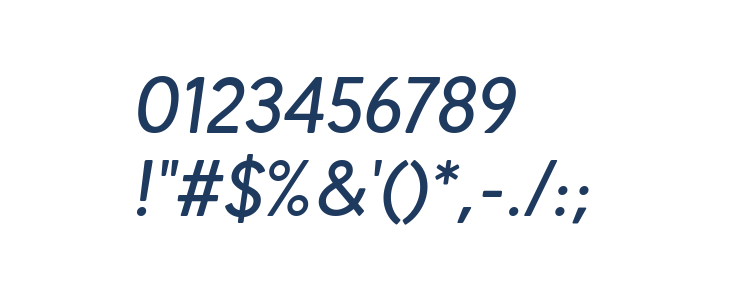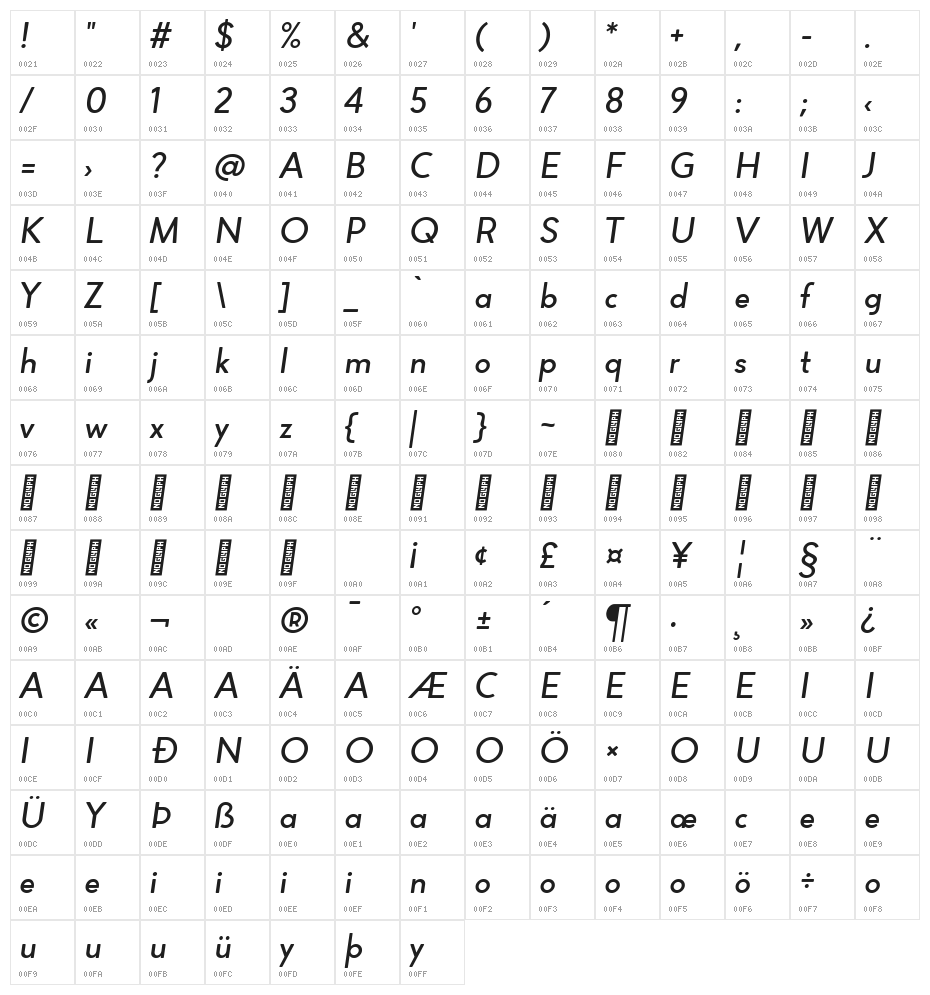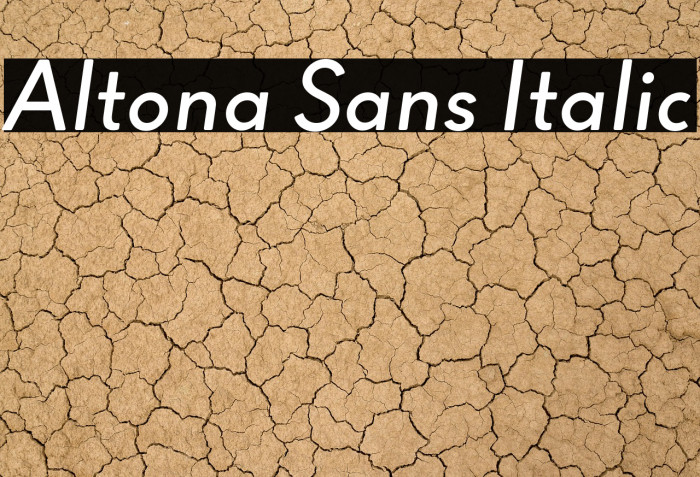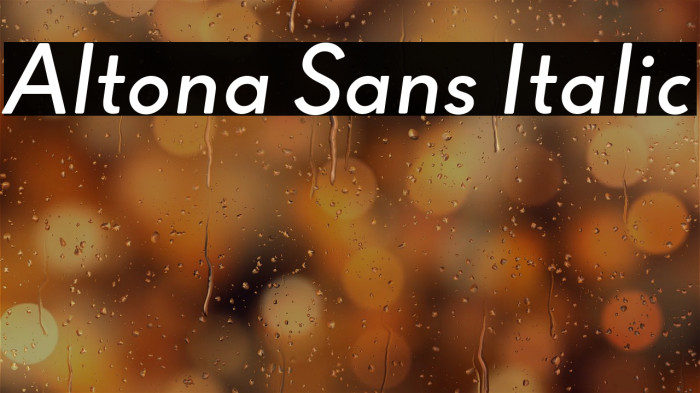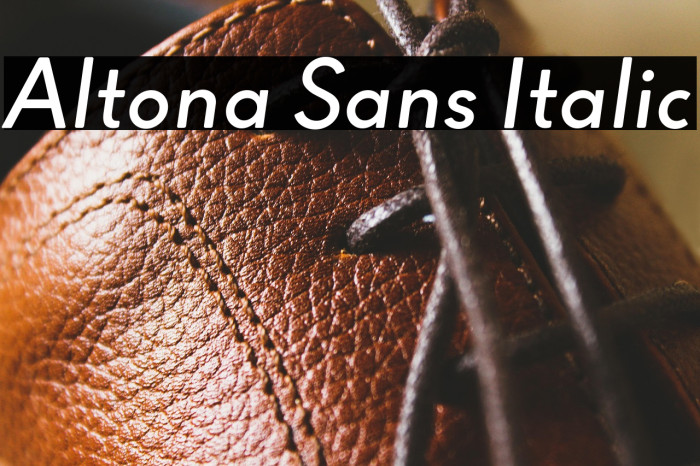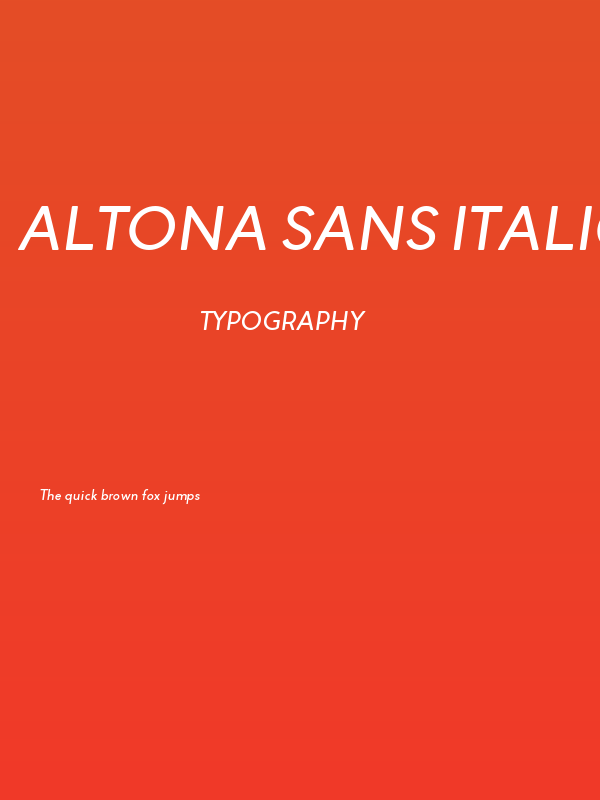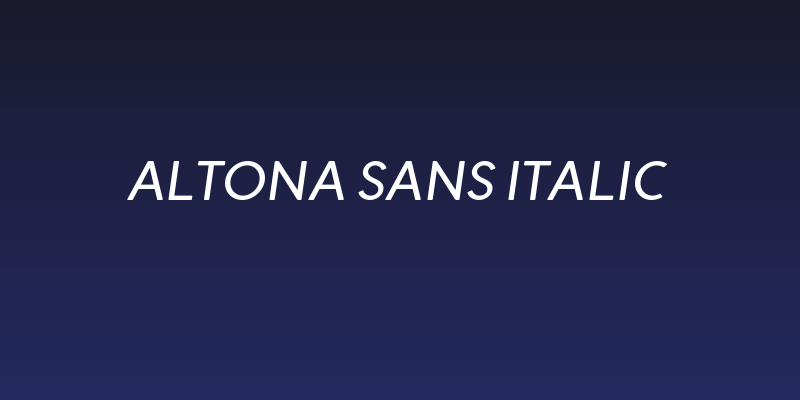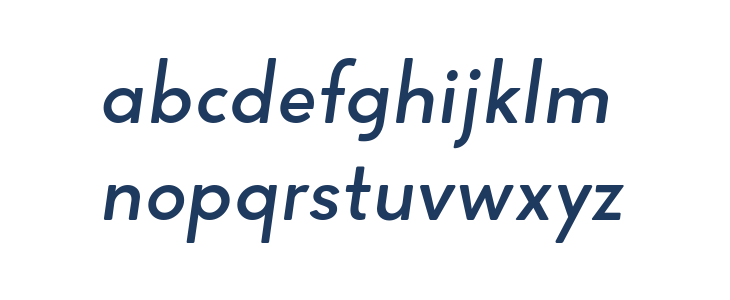
Altona Sans Italic Font
Altona Sans Italic Description
This font features a clean and modern sans-serif style with an italic slant, giving it a dynamic and forward-moving appearance. The characters are well-proportioned, with smooth curves and a consistent stroke width that maintains readability across various sizes. The uppercase letters are bold and assertive, while the lowercase letters have a friendly and approachable feel. The numerals are clear and distinct, ensuring legibility in numerical data. Special characters are designed with precision, complementing the overall aesthetic. This font is versatile, suitable for both digital and print media.